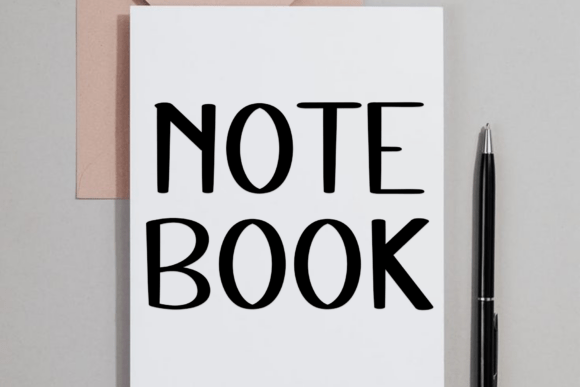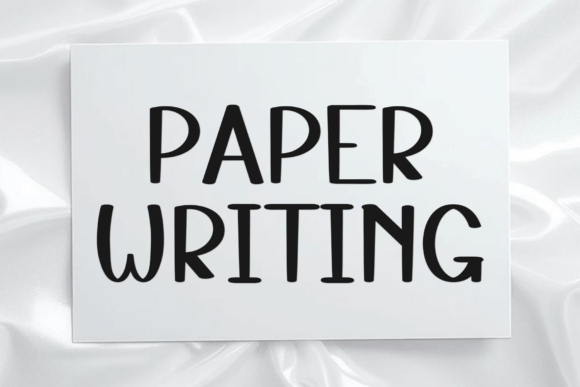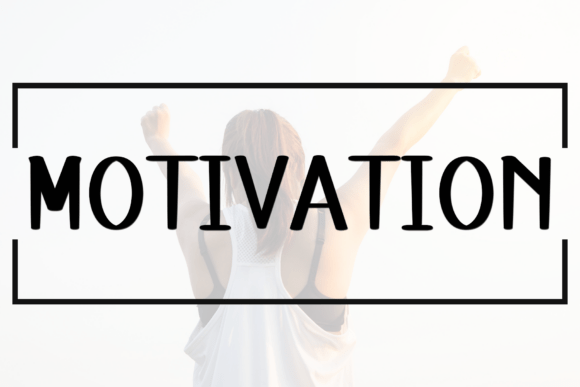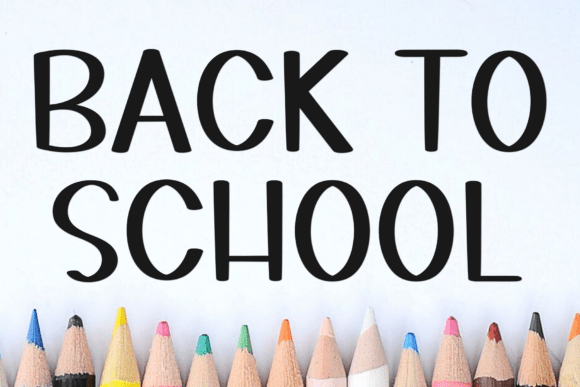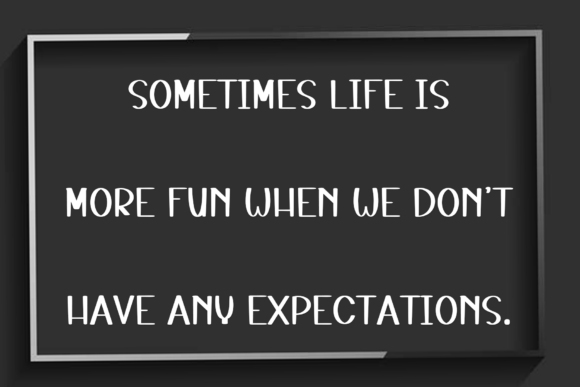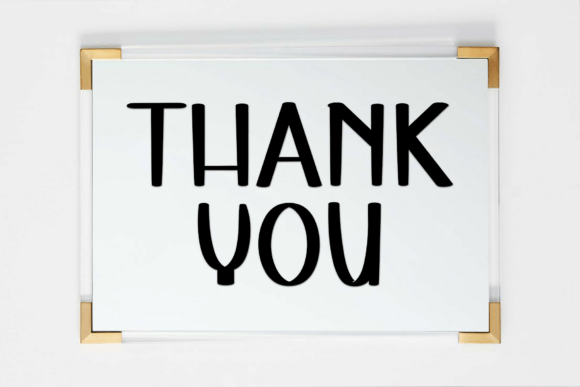
Introduction to Black White Font
Black White is a modern display typeface designed to balance bold presence with playful charm, making it a versatile choice for eye-catching design work.
The font features tall, clean letterforms with slightly irregular curves and subtle width variations that lend it a handcrafted, organic feel while still maintaining sharp clarity Its high contrast and elongated structure create a striking visual rhythm, perfect for headlines, posters, logos, packaging, and branding projects that need to stand out with both confidence and personality.